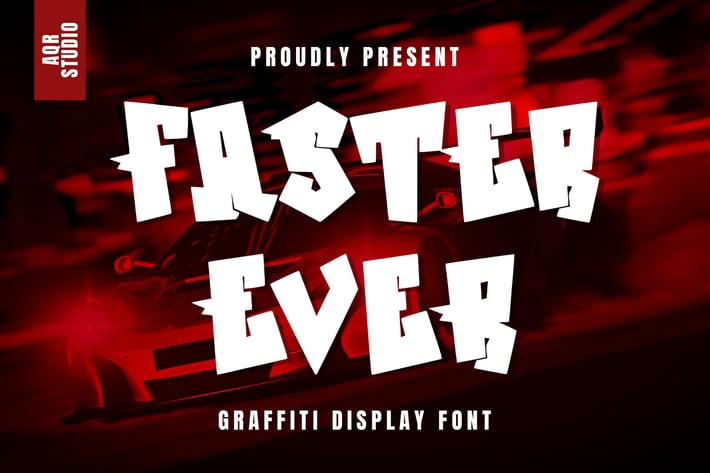
FasterEver - Graffiti Display Font
FasterEver - Graffiti Display Font contains a lowercase, uppercase, symbol, and also supports multi-language. There’s a lot of ligature in this font. FasterEver - Graffiti Display Font also comes with ligatures, stylistic alternates and many more.
this font suitable for fashion, branding, catalog and other design that you want.